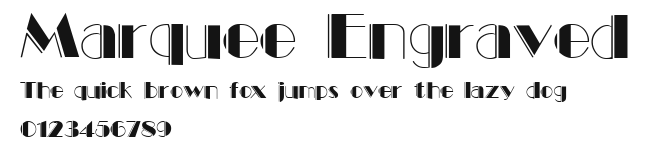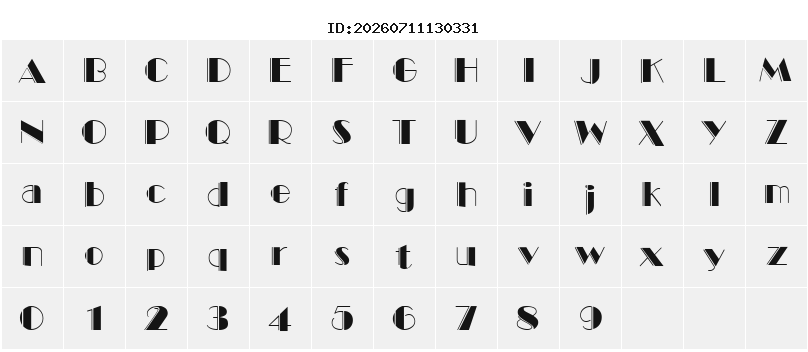
About Marquee Engraved.ttf
Marquee Engraved.ttf is a modern, elegant sans-serif font designed for ultimate readability and visual harmony. Perfect for branding, headlines, web design, and print materials.